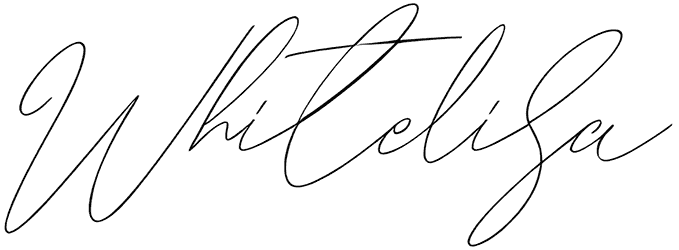
Whitelisa Font
Whitelisa is a lovely script font that has the real potential to add a personalized touch to all of your creative ideas and makes them look really distinct from their counterparts.
Considering its soft flow, it can be your survivor in the realm of designing greeting cards, social media posts, logos, business cards, or applications. Since it carries a feeling of delicacy, precision, momentum, or love, not having good readability would never be a serious problem.